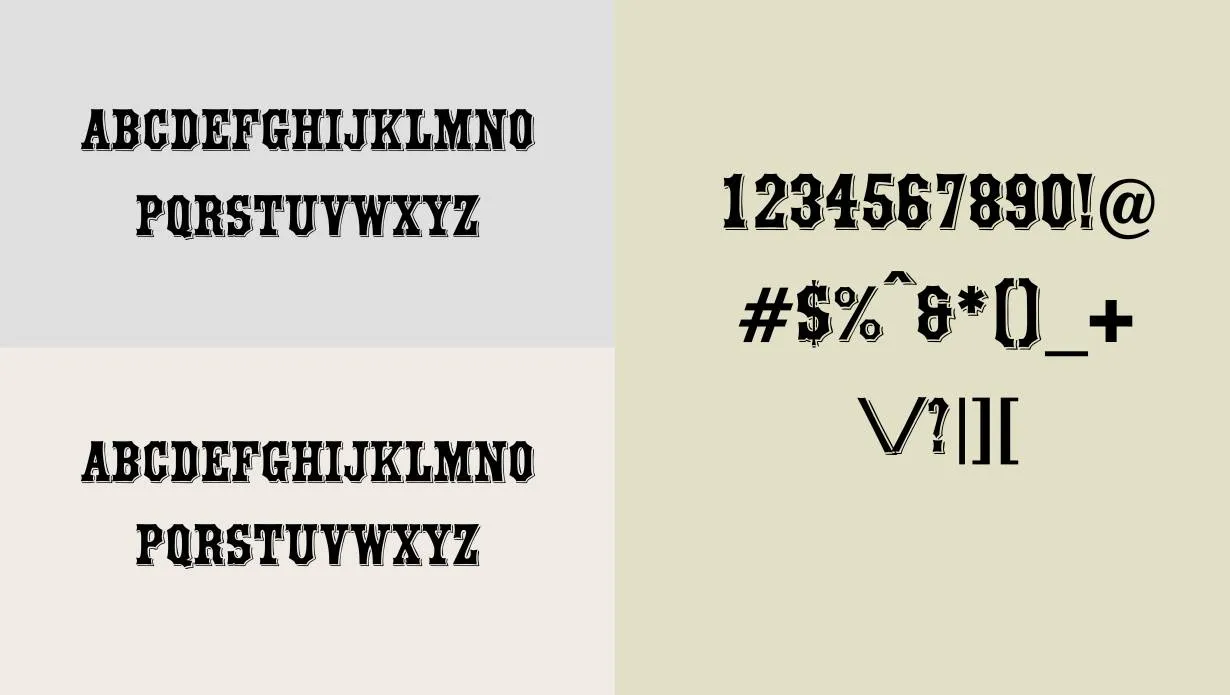
Montague Font is a classic serif typeface known for its elegance and timelessness. It’s often used in formal documents, book covers, and upscale branding.
The balanced contrast between thick and thin strokes in this font adds a sense of sophistication and professionalism to your projects.
| Name | Montague Font |
| Designer | Dieter Steffmann |